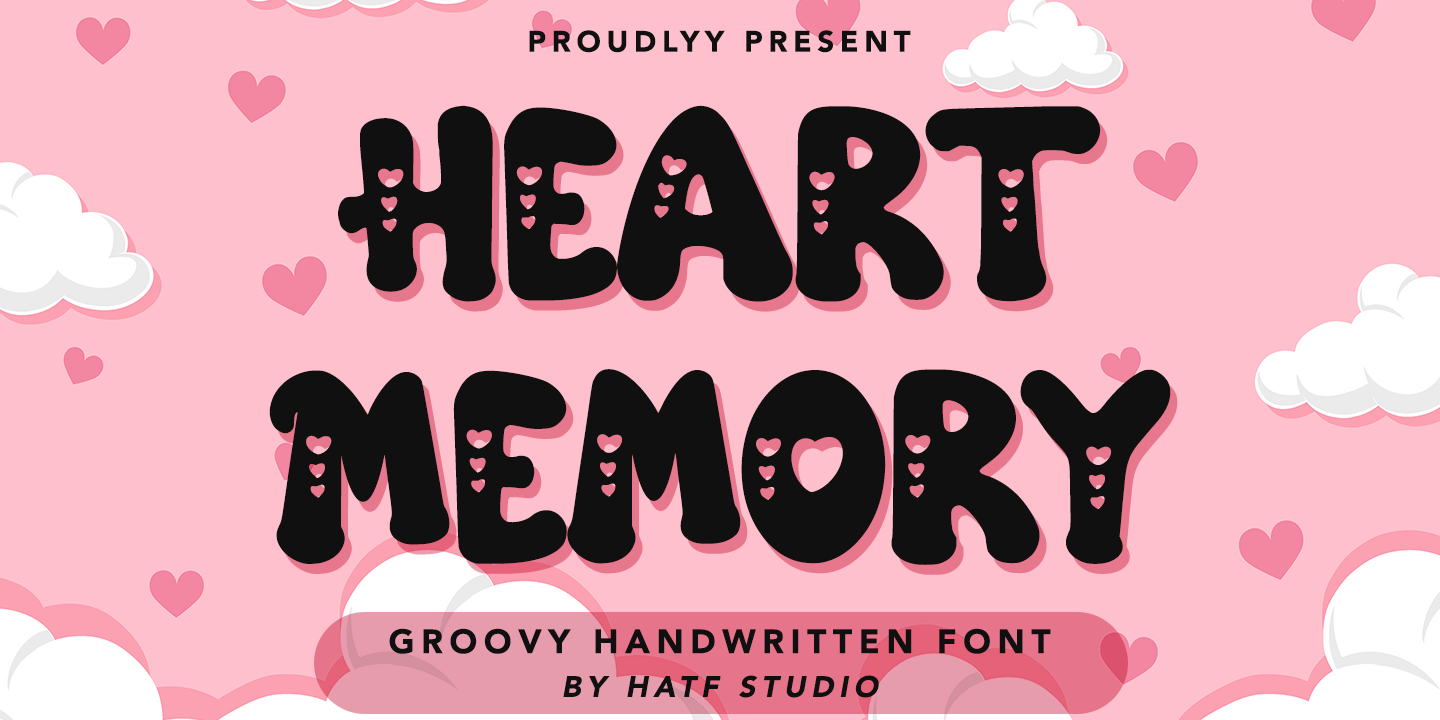
Heart Memory Font excels in memorial service programs, family photo album designs, nostalgic greeting cards, sentimental scrapbook layouts, memory preservation services, tribute publication materials, emotional counseling branding, and heartfelt remembrance projects. This touching typeface brings emotional remembrance and heartfelt nostalgia to any project requiring tender, memorable typography with authentic sentimental appeal and loving memorial character.
What makes Heart Memory Font exciting is its perfect embodiment of cherished memories and heartfelt remembrance that captures the tender emotions of precious moments and the enduring power of love that transcends time and space. The font features gentle letterforms with warm curves and sentimental details that mirror the softness of cherished memories and the emotional depth of heartfelt connections while maintaining excellent readability for memorial and commemorative applications. Its nostalgic character and emotional authenticity make it ideal for memorial services, family businesses, and organizations celebrating life's precious moments and the enduring bonds of love and memory. The typeface's memorial appeal ensures instant recognition of emotional quality and remembrance authenticity.
The Heart Memory Font family includes Light, Regular, Medium, Bold, and Script variants, each maintaining the signature sentimental elegance while offering different expressions of heartfelt remembrance and nostalgic beauty. The family features memory symbols, heart elements, and commemorative decorations that enhance its versatility for memorial branding and remembrance projects. These variants provide comprehensive tools for creating authentic memorial typography with genuine emotional character and sentimental appeal.
Whether you're designing for memorial services, family heritage projects, or emotional wellness brands, Heart Memory Font Free Download delivers the heartfelt authenticity that defines genuine remembrance typography. Its combination of tender emotion and nostalgic elegance makes it perfect for communicating cherished memories, loving remembrance, and emotional healing with authentic Heart Memory Font Free Download warmth and unforgettable sentimental presence.